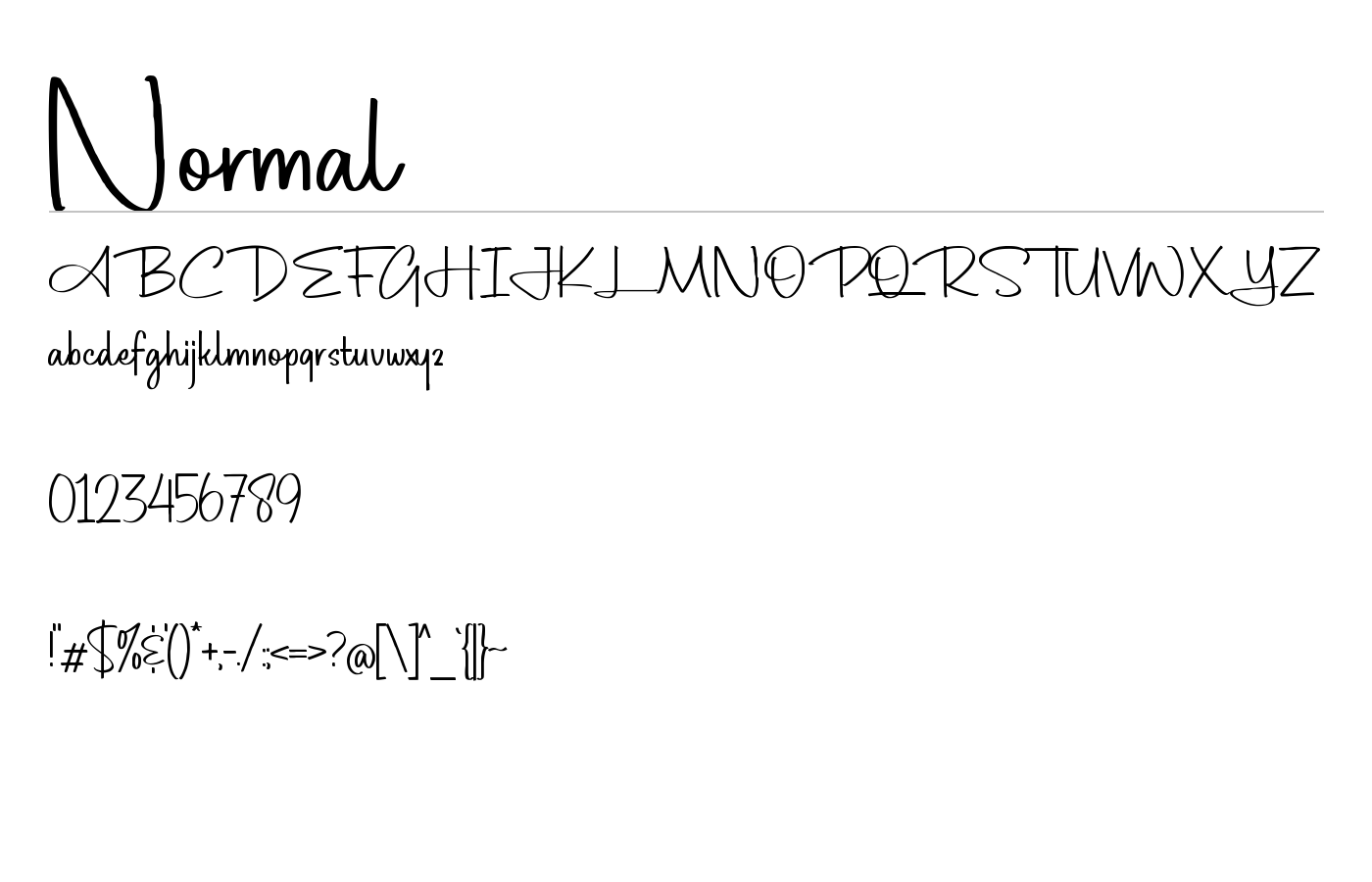
Adelaique is a slender, handwritten script font with a playful and whimsical character. Its thin, uneven strokes and tall, narrow letterforms give it a casual yet artistic feel, making it perfect for creative projects, personal branding, and informal invitations. This font works well where a touch of personality and lighthearted elegance is desired.
Adelaique Font
About Adelaique Font